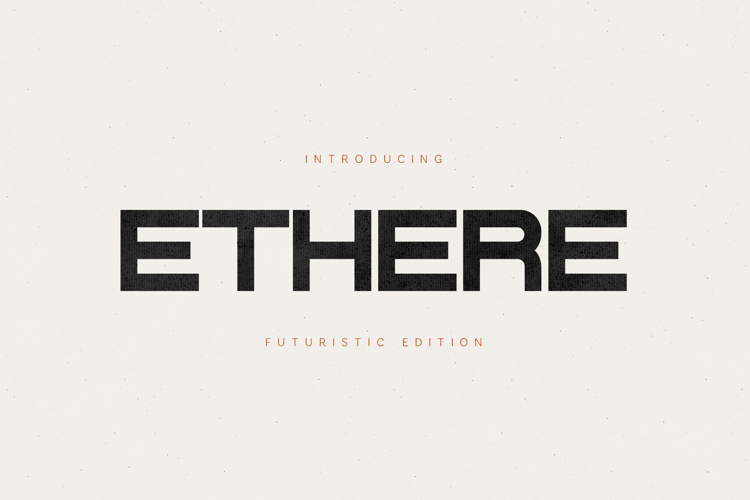
Ethere Futuristic Modern Sans Serif Font
Ethere is a futuristic modern sans serif font designed for bold statements and forward-thinking design. With strong geometric forms, sharp edges, and a clean structural rhythm, Ethere delivers a confident, high-impact aesthetic perfect for contemporary visual identities.
Ideal for tech branding, posters, headlines, logos, editorial layouts, and modern digital projects, Ethere balances precision with readability. Its futuristic character makes it especially suitable for technology, innovation, architecture, gaming, and experimental design systems.
✦ Perfect For- Futuristic & tech branding
- Logos & visual identities
- Headlines & posters
- Editorial & magazine design
- Digital, UI & experimental layouts
- Modern advertising & marketing